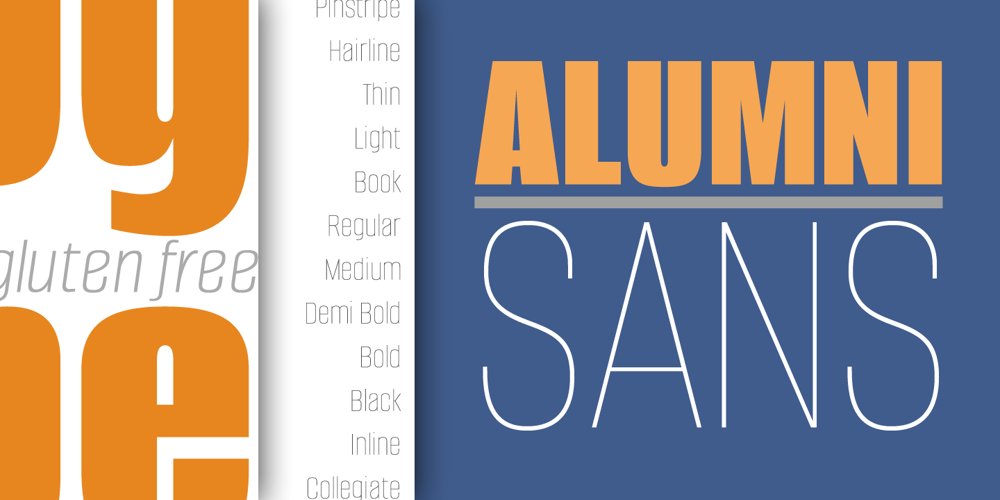
Alumni
Alumni font
Alumni Font Family was designed by Rob Leuschke and published by TypeSETit. Alumni contains 23 styles and family package options. At first glance, there is something familiar about this font, but one may not be sure… “Where have I seen this font before?” Known for his diverse portfolio of script style display fonts, typographic designer and lettering artist Rob Leuschke has taken a step back in time with Alumni™. A true departure from present trends, this font resurrects the clean and simple forms made popular in the 1950s. Originally inspired by the black face Impact™, it soon evolved to include numerous weights from the Black flavor of its progenitor to a super thin Pinstripe. The extreme weights (Pinstripe, Hairline and Black) are designed for display situations while the remaining weights may be used for more traditional textual design applications. The Inline and Collegiate flavors offer added display options. Alumni™ is available in Roman and Italic versions of each weight. Extensive kerning and OpenType programming have been applied to give it optimal functionality.